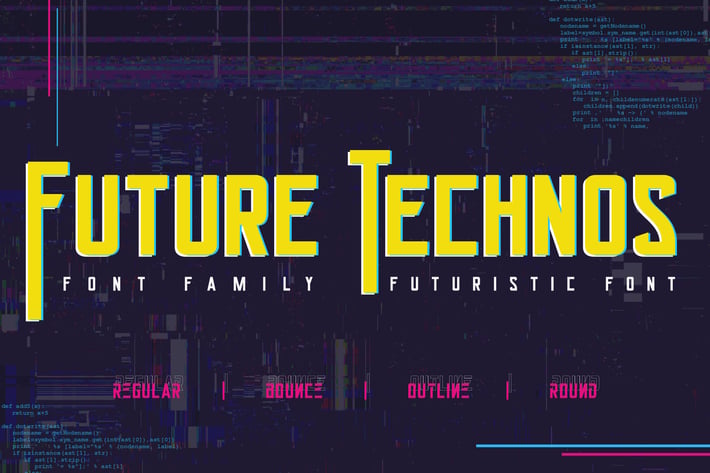
Future Technos Cyber Futuristic Font
Future technos is elegant and futuristic font. It can easily be matched to an incredibly large set of projects like logo, package, advertisement, magazine, , so add it to your creative ideas and notice how it makes them stand out!